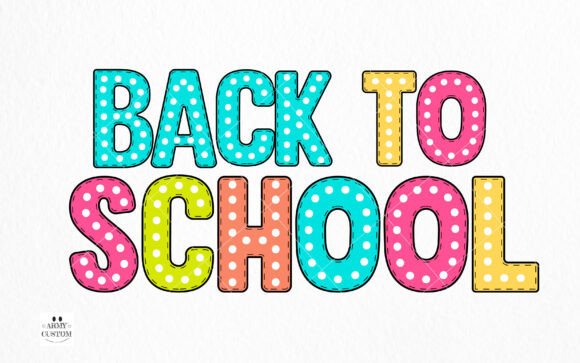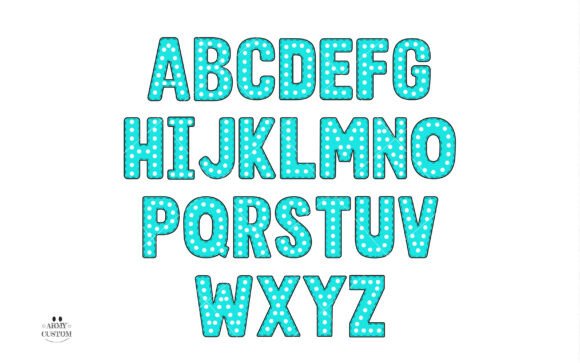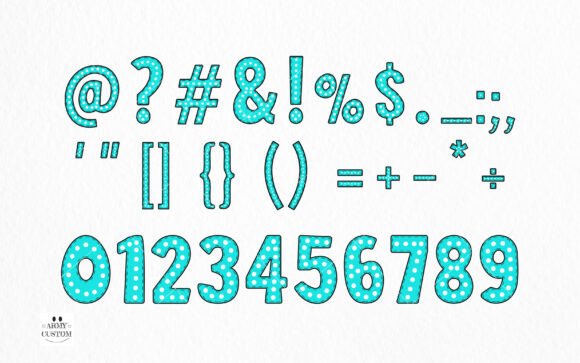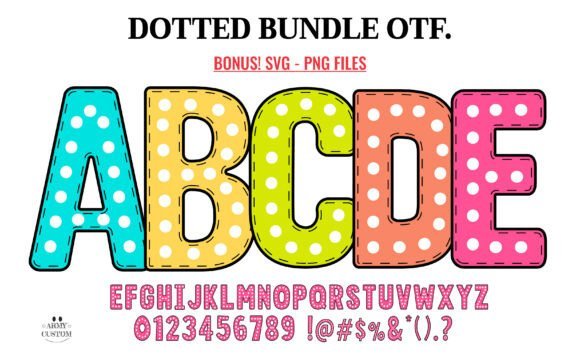
Introduction to Dotted Bundle Font
Introducing Dotted Bundle font – an enchanting mix of whimsy and vibrancy designed to infuse your creative projects with an element of joy and playfulness.
Ideal for injecting charm into any cute theme endeavor, this color font paints a canvas of creativity that leaps off the page Harness the power of DottedBundle and let your imagination take flight.
Why Choose Dotted Bundle Font?
Dotted Bundle Font offers exceptional quality and versatility, making it a valuable addition to your design toolkit. Whether you’re creating for personal projects or commercial use, Dotted Bundle Font delivers professional results.